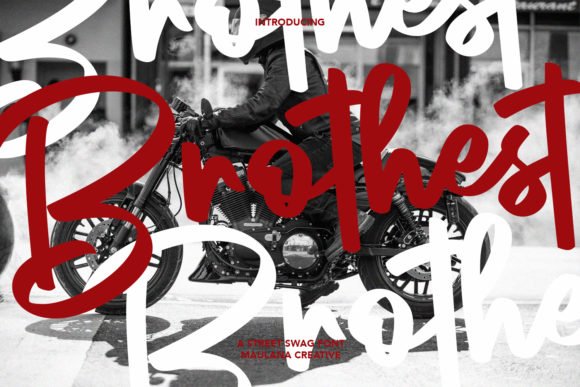
The Perfect Font for Your Next Design Project
Remember the thrill of stumbling upon that perfect font that elevates your design to the next level? It’s a feeling designers know all too well, and it’s what drives us to keep pushing the boundaries of creativity. For me, that moment came when I discovered the Brothest Font – a cool, bold, street styled display font that adds a touch of nostalgia to any design.
Brothest Font is more than just a font; it’s a statement piece that conveys strength, confidence, and dynamism. Whether you’re working on a branding project, a social media campaign, or a graphic novel, this font is sure to make your design stand out. Its versatility and unique character make it a valuable asset for designers looking to add a touch of personality to their work.
Brothest Font Key Features
- Unique Characteristics: The font features a unique blend of modern and vintage elements, with intricate details and ornate flourishes, making it perfect for creating eye-catching and elegant designs.
Brothest Font Review
I recently had the chance to work with the Brothest Font, and I must say, it’s a unique addition to any design project. Here are my thoughts:
- The Brothest Font has a quirky, hand-drawn feel that can add a lot of personality to a design. It’s perfect for projects that need a bit of whimsy.
- The Brothest Font is also available in a range of weights and styles, making it easy to create a cohesive look across different elements of a design.
- The Brothest Font can be a bit difficult to read, especially in smaller sizes. This may make it less suitable for body text or other areas where clarity is key.
- The font’s unique style may not be to everyone’s taste. Some designers may find it too quirky or distracting.
Overall, I think the Brothest Font is a fun and creative option for designers who want to add a bit of personality to their projects. While it may have some limitations, it’s a great choice for titles, headings, and other areas where a bit of flair can make a big impact.
Brothest Font is ideal for creating bold, eye-catching headlines and titles. It’s also great for adding a touch of personality to your designs, such as in logos, branding materials, and social media graphics.
Tips for Getting the Most Out of Brothest Font
To get the most out of Brothest Font, use it in conjunction with bold, bright colors and creative typography. Experiment with different font sizes and styles to create visual interest and emphasis.
Alternatives to Brothest Font for Designers
Pacifico is a beautiful, elegant script font ideal for invitations, wedding designs, and other creative projects where a touch of sophistication is required. It is a more refined alternative to Brothest Font, with a smoother and more precise feel.
Compared to Brothest Font, Pacifico is more versatile and suitable for a wider range of projects. While Brothest Font is often used for playful and casual designs, Pacifico is better suited for high-end and luxury projects.